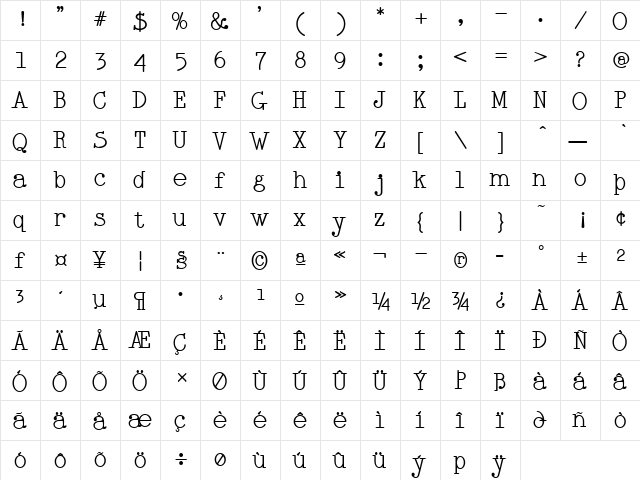
Scrubcle Regular
Design Context for Scrubcle Typeface
Scrubcle offers clean, dependable letterforms without strong stylistic allegiance, making it a practical choice for designers who need flexibility.
Pro Tip: Pair Scrubcle with a font of contrasting weight or personality to build a more expressive typographic hierarchy.